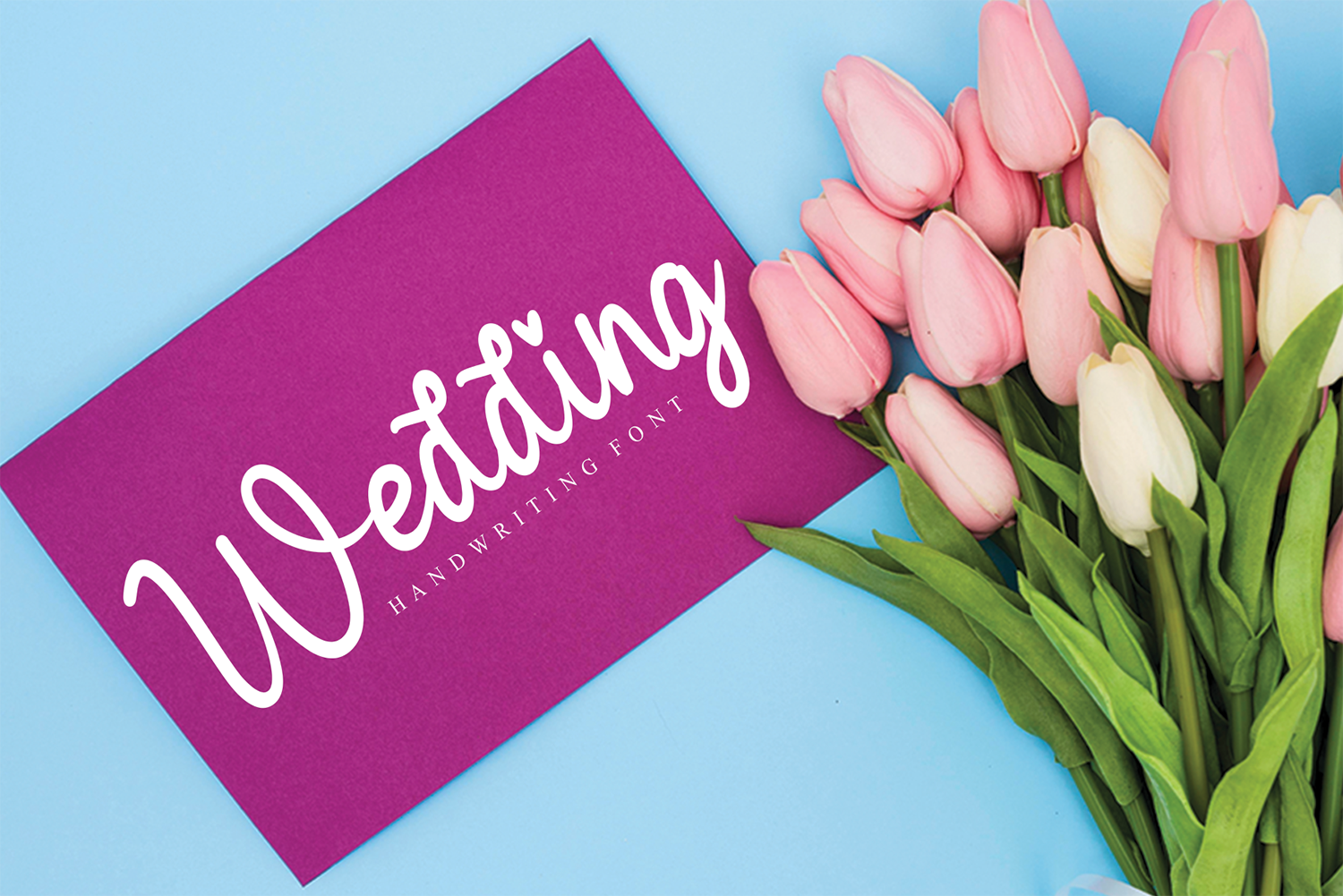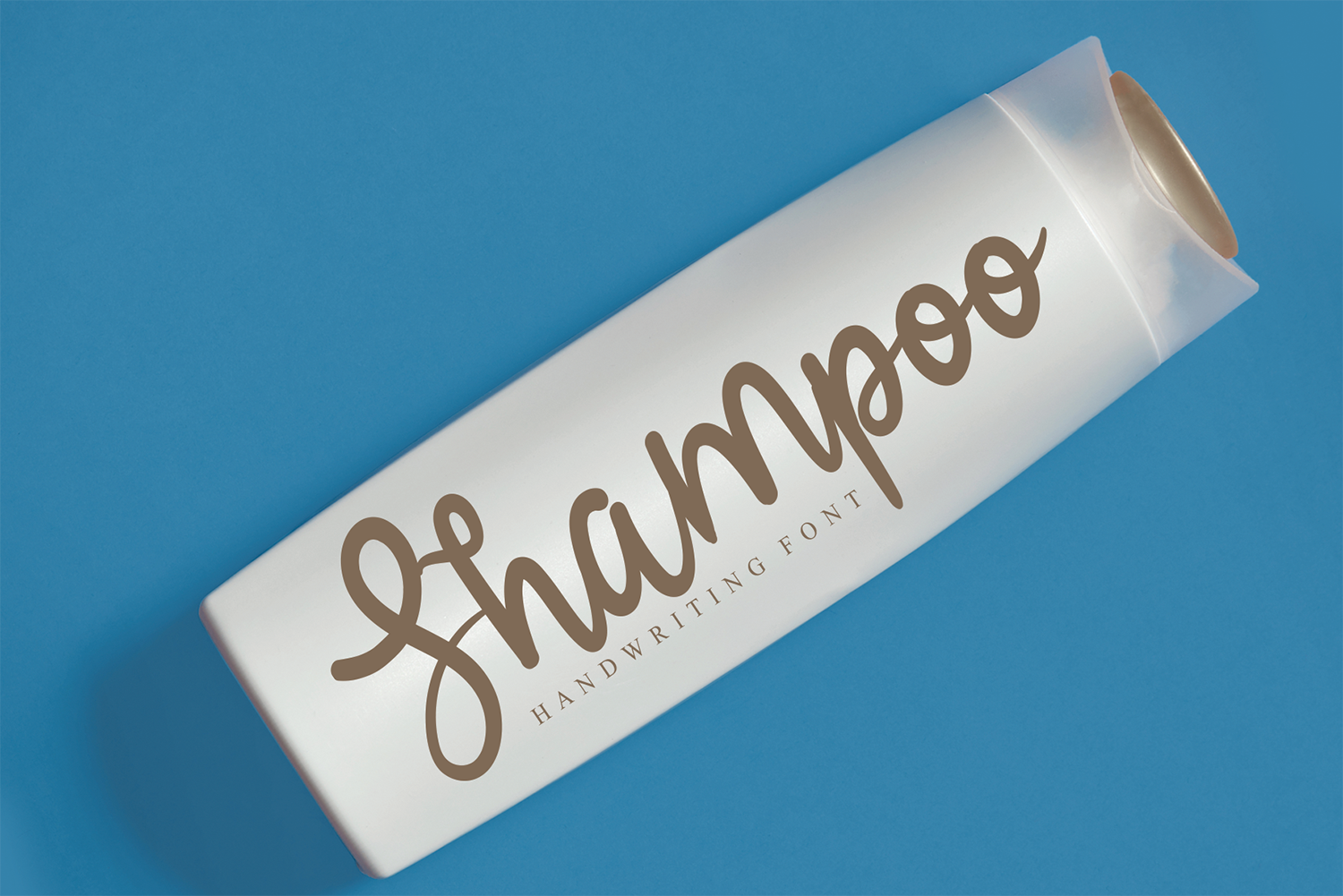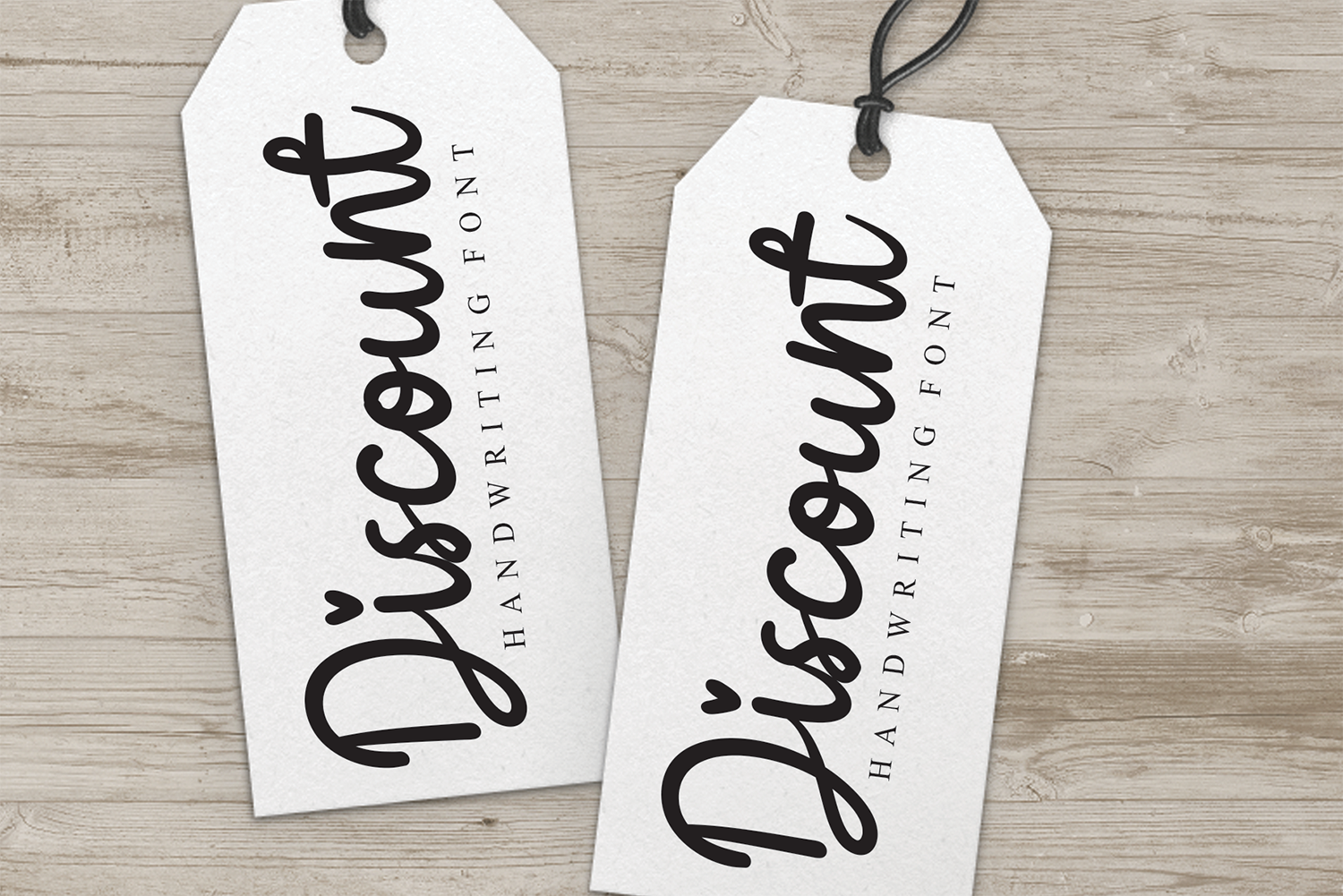
Las Fallas Free Font
Meet Las Fallas Free Font, a contemporary handwritten font exuding readability, boldness, and a dash of elegance. Characterized by its sleek curves, this font is an impeccable choice for fashion branding and editorial layouts. Infuse it into your projects with confidence, and witness the exceptional outcomes firsthand. This free typeface was designed by a talentedΒ Scratchones Creative. If you like it don’t forget to check out the full version.